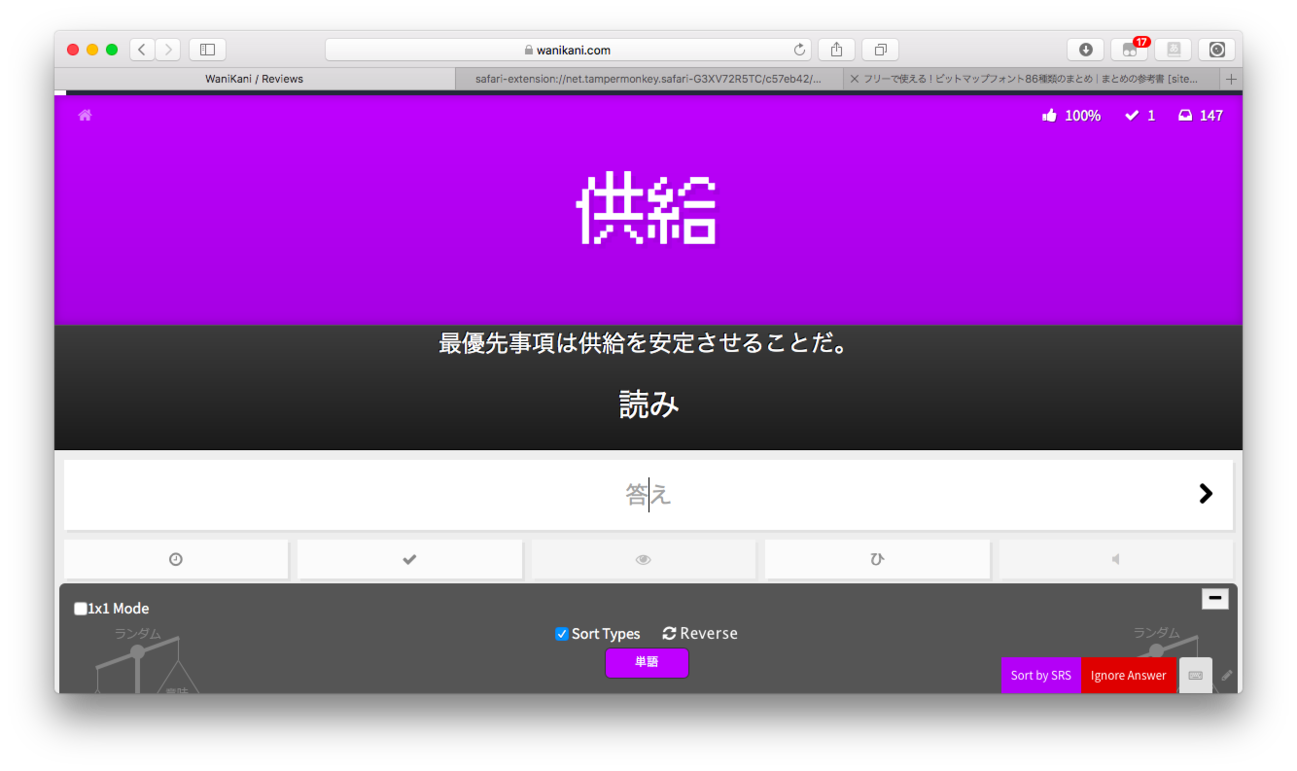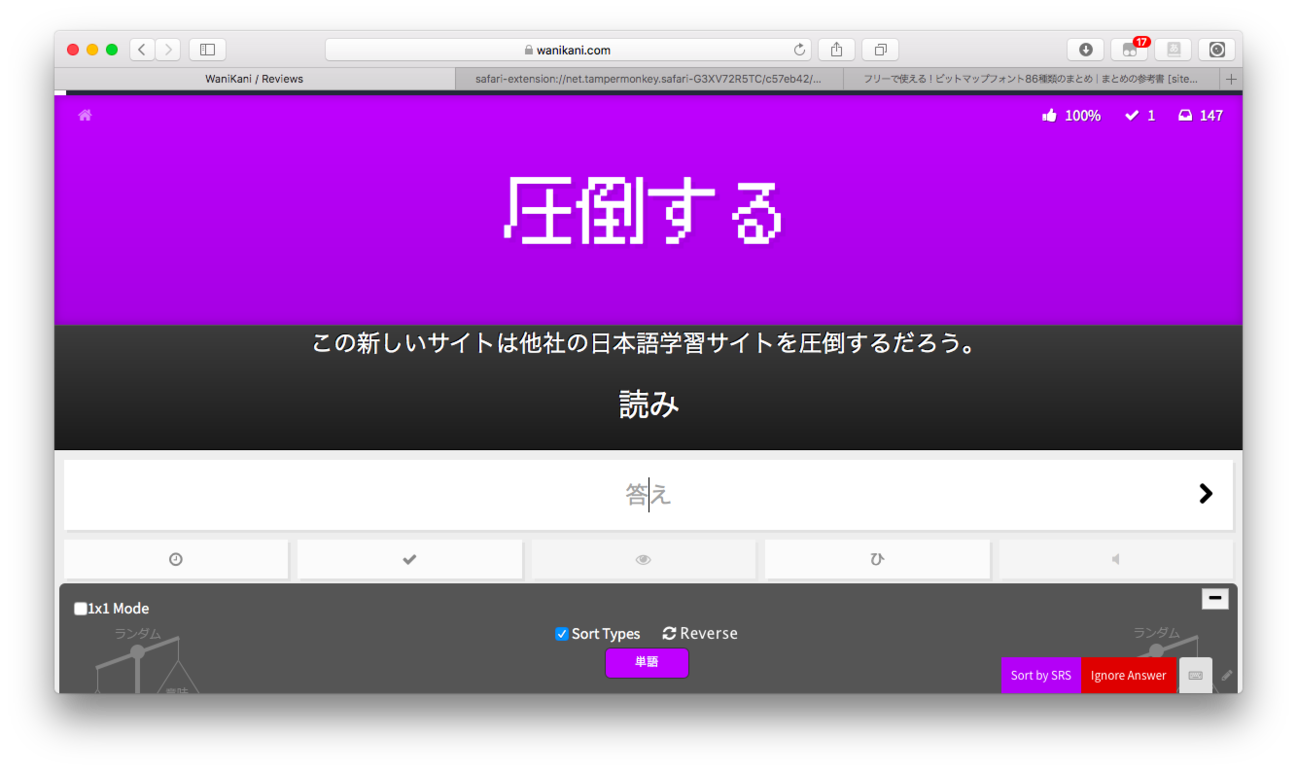
Font types and recommendations for Jitai
I am talking about Jitai (字体): The font randomizer that fits
Talking about font types, I think there are…
Gothic (a default Mac font)
Mincho (a default Mac font)
Sans (a default Mac font)
Calligraphy fonts Nagayama Kai calligraphy font - Free Japanese Font
Zin Hena Bokuryu - Free Japanese Font - Free Japanese Font
Kouzan semi-cursive brush font - Free Japanese Font
(Stroke order is very important here!)
Fancy fonts Armed Banana - Free Japanese Font - Free Japanese Font
Pixelated fonts フリーで使える!ビットマップフォント86種類のまとめ|まとめの参考書 [sitebook] (forget the stroke order for this one, OK?)
Do you have a recommendation for fonts I cannot find?
You are missing digital looking fonts. Like
Digital Looking Fonts
Wow, some of these fonts are horrible. Are they actually used?
It might be fine after more practice, but the calligraphy fonts are nearly impossible for me to parse. For the pixelated ones (especially that first row), is there actually sufficient resolution to differentiate between complex kanji?
Sufficient space or not, I am learning to read the forth row, just because it really is used.
All the fonts here are a good idea to be able to read, except for one. I mean, it’s good if you can read it, but whoever came up with the second digital font mentioned by @temporaryuser381 can jump in a well. In a digital world, I would always recommend one copy-pastes any text written like that and changes the font to something sensible, or just refuses to indulge the writer.
The calligraphy fonts, however, are essential because, unfortunately (I guess), some people do write like the less legible ones.
So what are you gonna do when you see someone’s handwriting in books, shops and other places? :thinking:
I think the second one (GN KillGothic U KanaNA) would be a lot more readable if it’s not so thick/bold.
Well, fonts are used for styling, and this font only comes in bold versions. Besides i don’t think light version would look so cool. :sunglasses:
If that’s on a coffee shop, I’m skipping my coffee that day. One of the rare occasions I’d completely endorse just walking away. Almost the same reason I’d not bother with Windings.
This font may not be that useful, but it certainly looks cool.
BTW Wingdings is not a font for text, It’s a font to input text based images in your text. So instead of searching the internet for a scale-able, image you can just use wingdings font.
Sure, but that’s kind of my point. At a certain level of deliberate illegibility, it becomes very hard to distinguish between characters and textually insignificant squiggles.